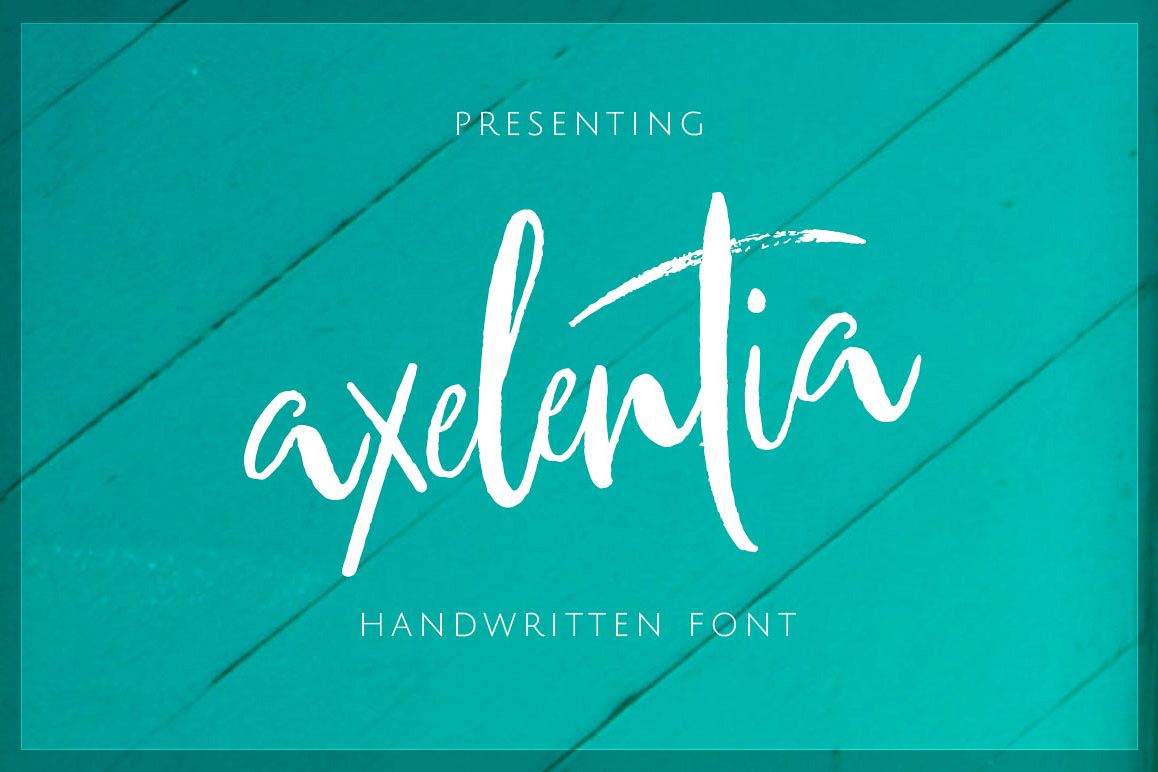
axelentia
Introducing Axelentia Natural Brush Script!
Axelentia is a natural brushed font with a dirty textures. This font will give you a fresh and edgy looking design
and will look beautiful with offers, fashion magazines, logos & more.
Axelentia Alternates
Axelentia Brush Font Branding